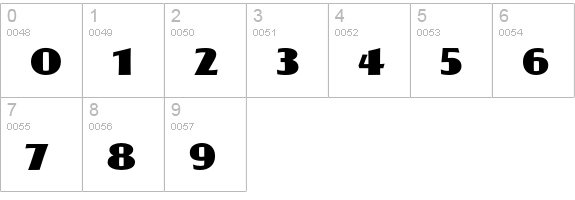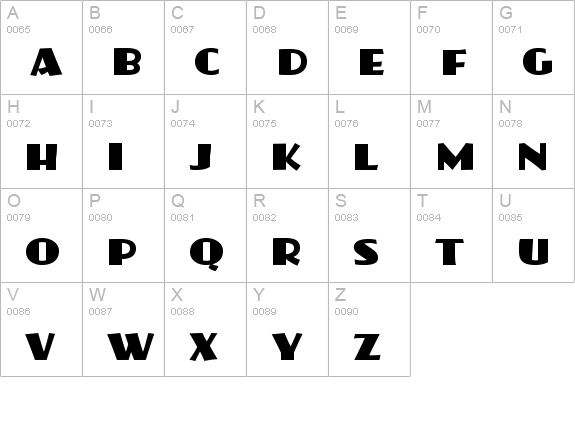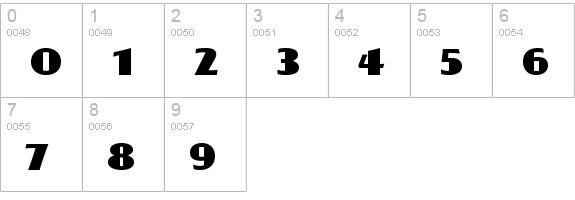
Bonita Std Font Details
Bonita Std is a versatile and stylish font that exudes elegance and sophistication. With its smooth curves and clean lines, Bonita Std is perfect for a wide range of design projects, from branding to editorial design. This font adds a touch of modernity and sophistication to any project, making it a popular choice among designers and creatives. What makes Bonita Std even more appealing is that it is available for free download at FontsMarket.com. This means that you can easily access this beautiful font and incorporate it into your projects without any cost. Whether you're working on a personal project or a client's project, Bonita Std is sure to elevate your design and make a lasting impression. Download Bonita Std today and add a touch of elegance to your next design endeavor.